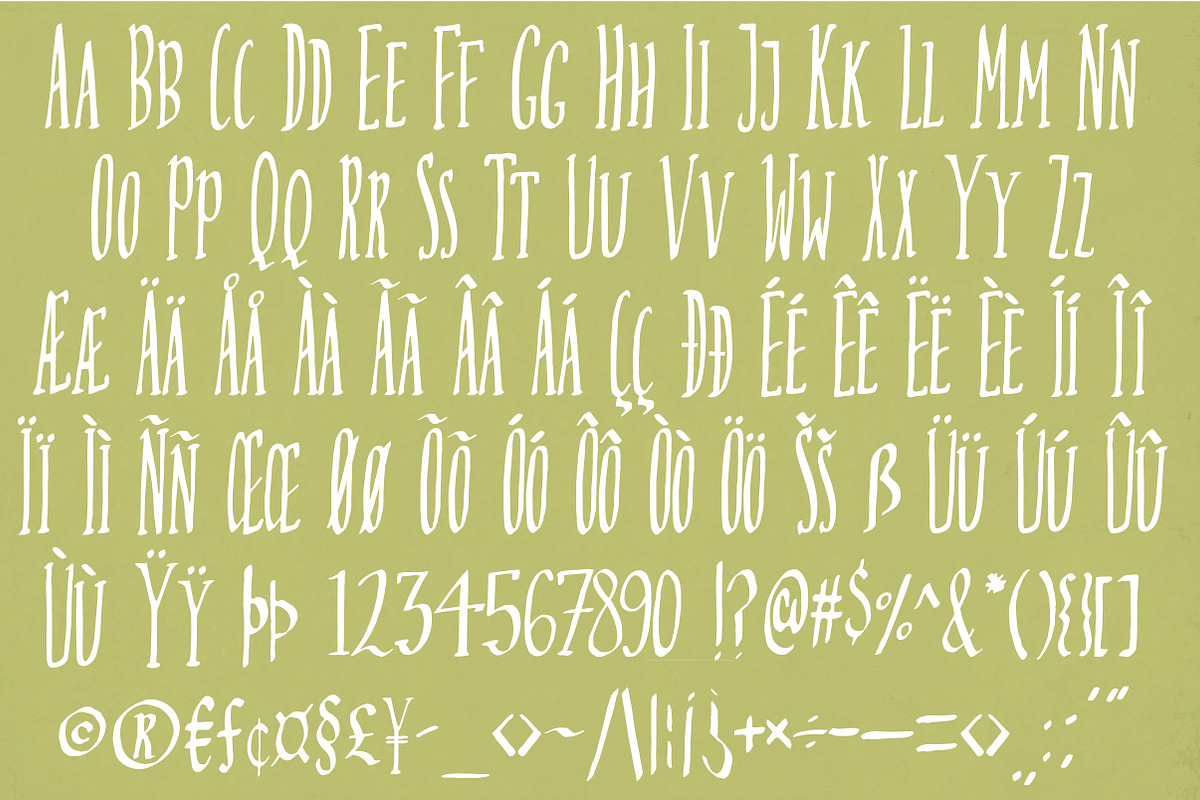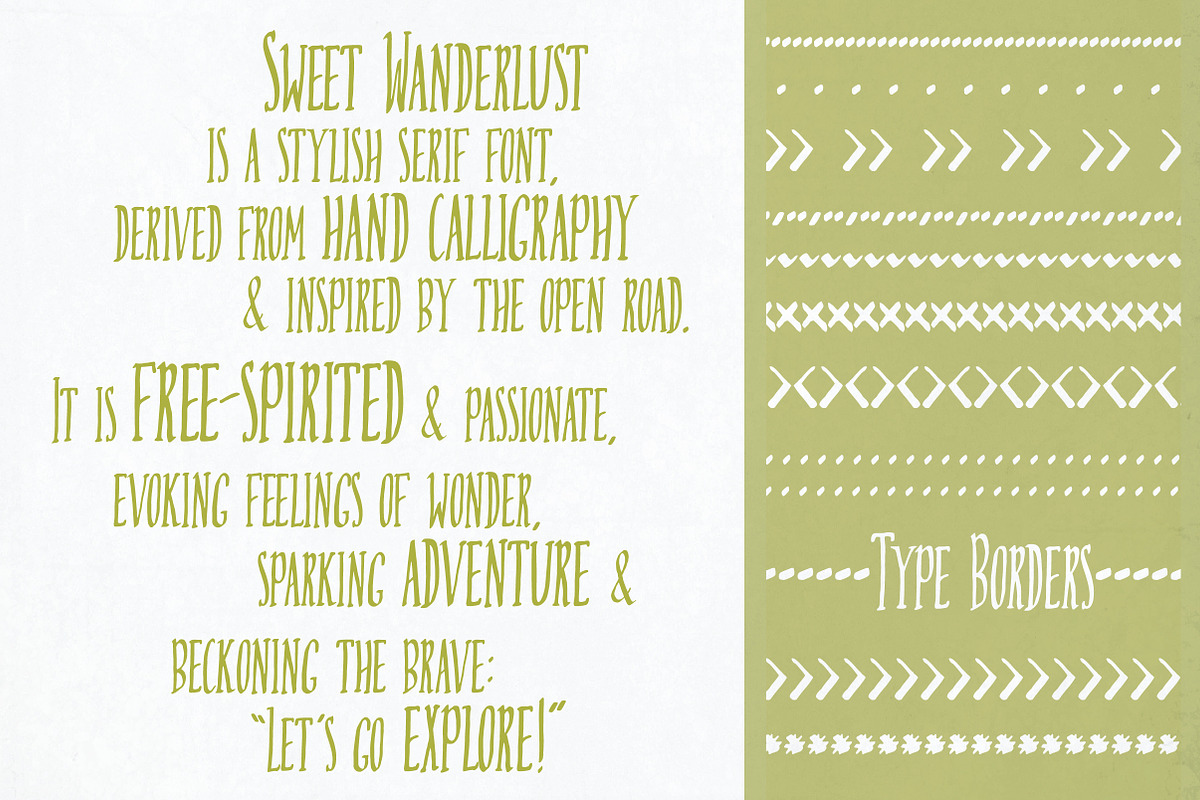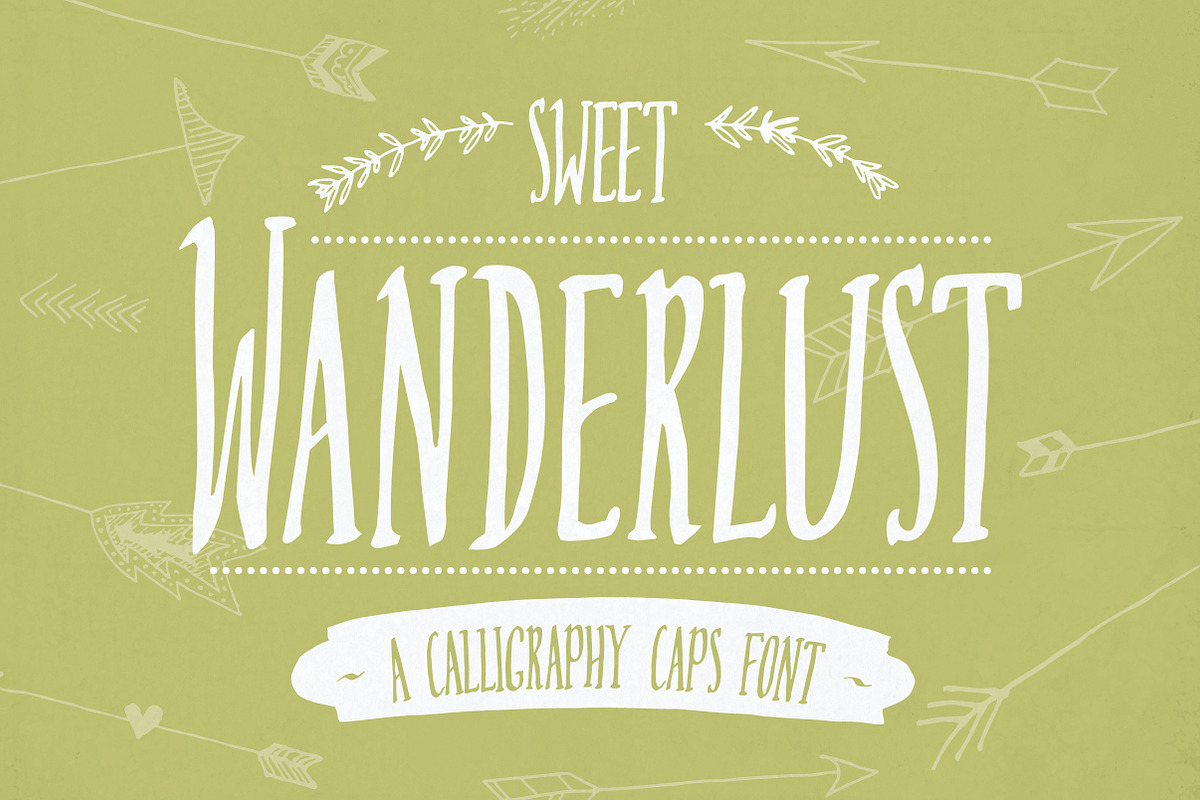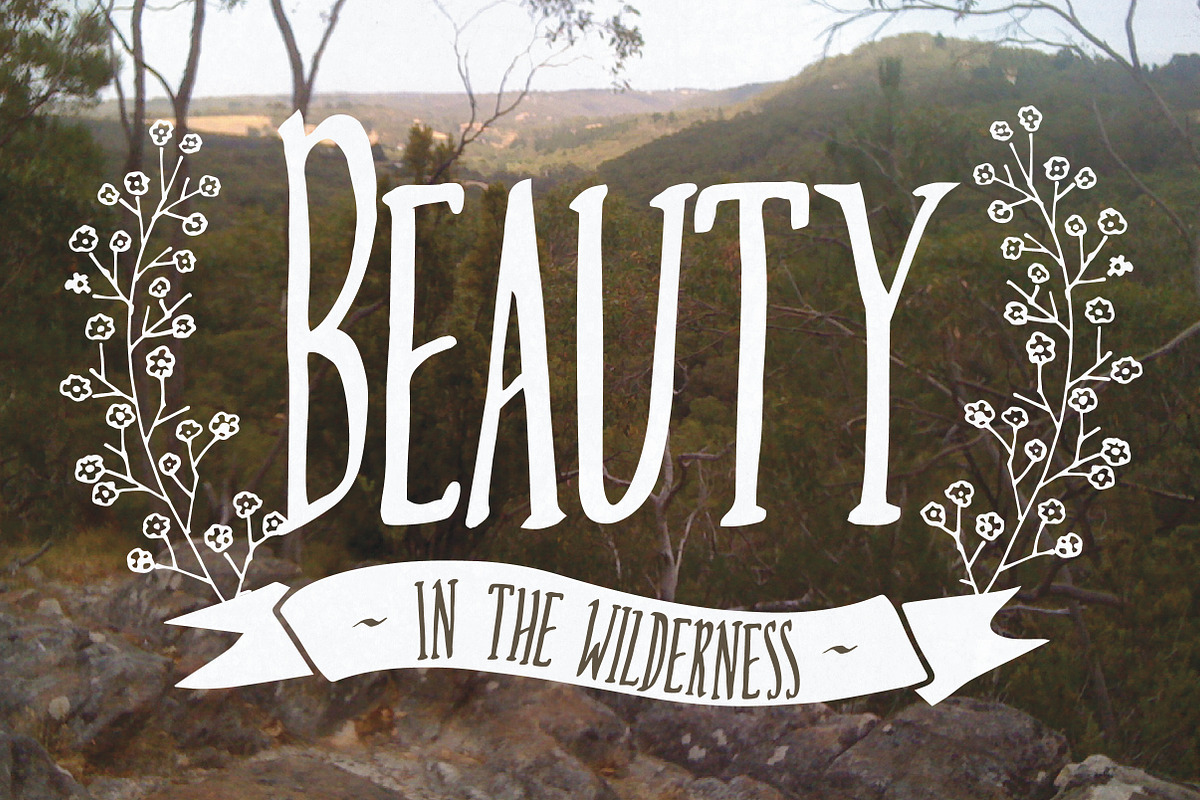
Sweet Wanderlust Font
Sweet Wanderlust Font by The Pen and Brush is a font selected for branding, posters, packaging, typography.
- It comes with all the essential glyphs (see example pic 2), plus extras including alternate currency symbols, copyright, and all the accents
Why Sweet Wanderlust Font is worth a look
Sweet Wanderlust Font by The Pen and Brush fits naturally into Branding, posters, packaging, typography.